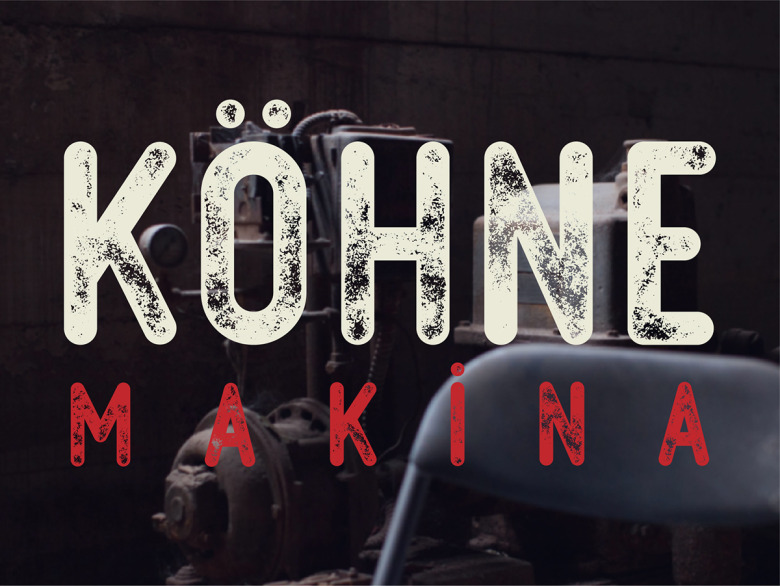
Kohne Makina Font
Kohne Makina is a high quality Sans Serif font that is designed by Krafti Lab and is available for free download personal & commercial use. The free version provides all uppercase and lowercase letters and a few special characters too.
Kohne Makina Sans Serif Font